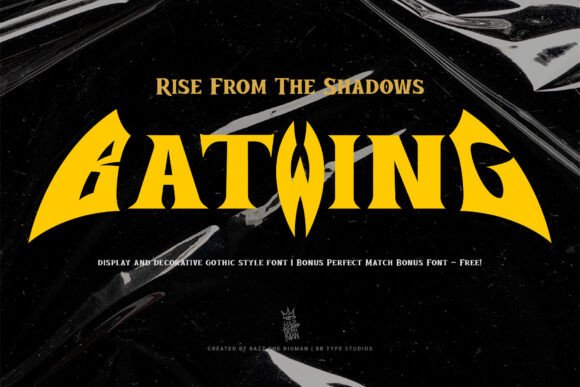
The Bat Wing Font: A Bold and Fierce Blackletter Typeface
Have you ever been working on a design project, and suddenly, you’re struck by a creative block? You’re not alone! I recall a project where I was tasked with creating a logo for a heavy metal band. The client wanted something bold, fierce, and attention-grabbing. After hours of scouring font libraries, I stumbled upon the Bat Wing font. It was love at first sight! ✨ The bold, blackletter typeface with razor-sharp edges and exaggerated serifs instantly captured the essence of the band’s music. In this article, we’ll dive into the world of Bat Wing font, exploring its features, uses, and alternatives.
A Personal Review: What I Love and What I Don’t
- ✨ Unique and bold design: Bat Wing font is perfect for making a statement. Its sharp edges and serifs give it a fierce and rebellious look.
- ✅ Highly versatile: This font can be used for logos, band identities, horror themes, and rebellious designs.
- 🎨 OpenType features: Bat Wing font comes with a range of OpenType features, including glyphs and stylistic alternates, making it easy to customize.
The Not-So-Good Stuff
- 🤔 Limited use cases for body text: Due to its bold and ornate design, Bat Wing font may not be the best choice for body text or long paragraphs.
- ⚠️ Some kerning issues: As with any font, there may be some kerning issues, especially when using certain character combinations.
The Designer Inspiration Behind Bat Wing Font
The Bat Wing font was inspired by the dark and mysterious world of gothic legends. The designer, fueled by a passion for heavy metal music and horror movies, aimed to create a font that embodied the spirit of rebellion and nocturnal wings. The result is a bold and fierce blackletter typeface that’s perfect for making a statement.
| What is Bat Wing font best used for? | Bat Wing font is best used for logos, band identities, horror themes, and rebellious designs. |
| Is Bat Wing font suitable for body text? | No, Bat Wing font is not recommended for body text due to its bold and ornate design. |
| Does Bat Wing font come with OpenType features? | Yes, Bat Wing font comes with a range of OpenType features, including glyphs and stylistic alternates. |